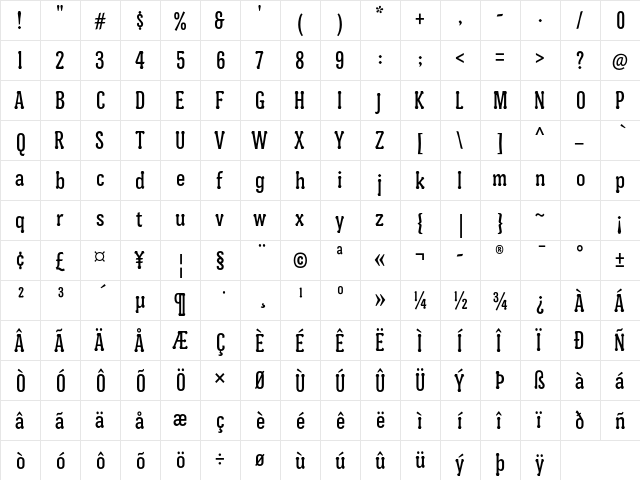
Batak Condensed ITC Std Regular
| Designer | Charles Nix |
Design Context for Batak Condensed ITC Std Typeface
Batak Condensed ITC Std is a composed and adaptable typeface that performs quietly and consistently across a wide range of design contexts. The condensed width makes it efficient for tight spaces without sacrificing legibility.